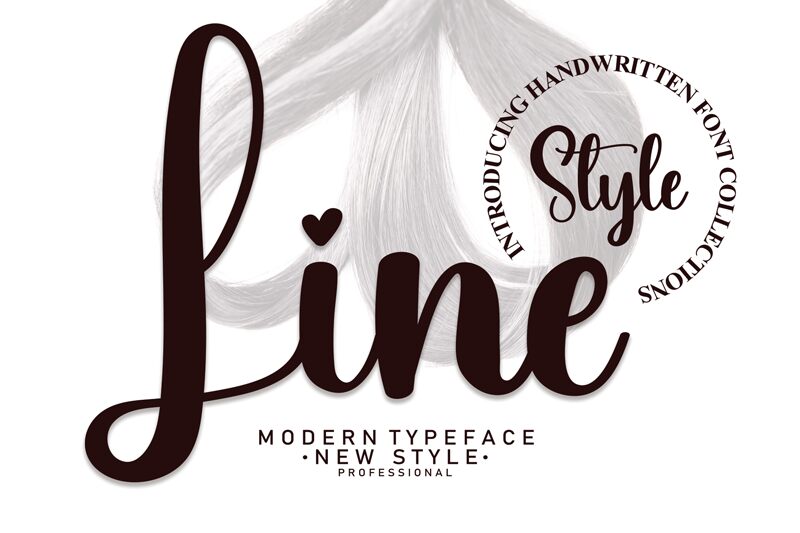
Line
Line, a calligraphy treasure crafted by Scratchones, brings an elegant fusion of classic charm and contemporary flair to the typographic world. Its semi-condensed width offers a stylish efficiency that makes it both distinctive and space-conscious. The fluidity of Line's strokes captures the essence of hand-lettered artistry, while its clean lines ensure legibility and grace.
With its aesthetic appeal resonating through every curve, Line is poised to enhance various creative endeavors. It is perfectly suited for invitations that require a personal touch, branding materials that demand sophistication, or any project where a hint of artisanal beauty is desired. Embrace the allure of Line for an unmistakable impression that blends tradition with modern sensibility.